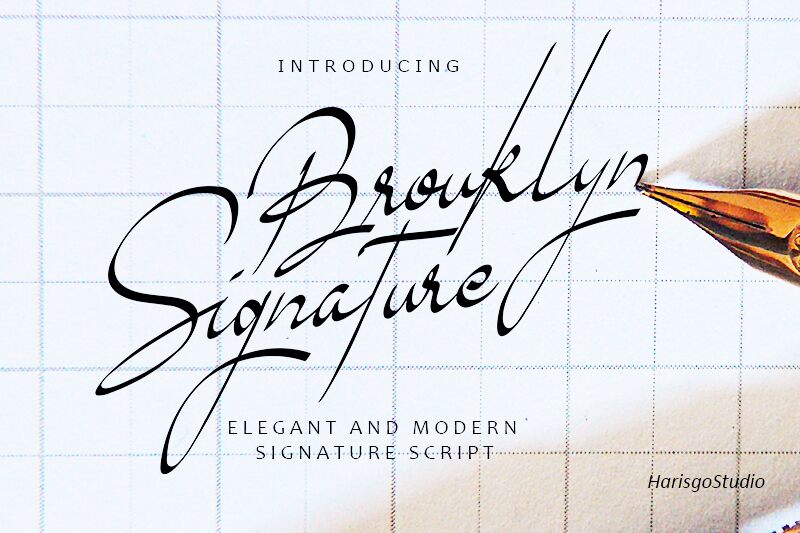
Brouklyn Signature, the latest creation by renowned font designer Haris Gozali, is a stunningly elegant typeface that emulates the beauty of a handwritten signature. With its extra-light weight and flowing curves, Brouklyn Signature is perfect for adding a touch of sophistication to any project. From wedding invitations and greeting cards to logos and branding materials, this font is versatile and adaptable to any design concept. Its delicate strokes and graceful loops make it ideal for use in fashion design or beauty branding. Add a touch of class to your next project with Brouklyn Signature – the epitome of timeless elegance.